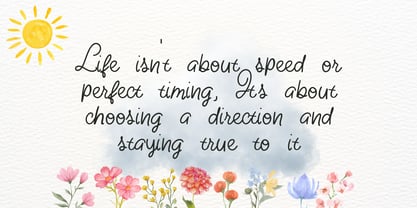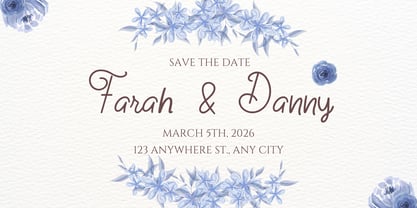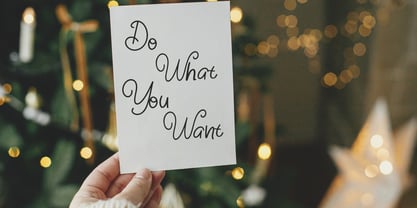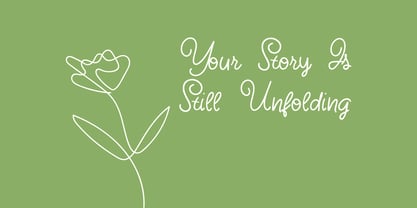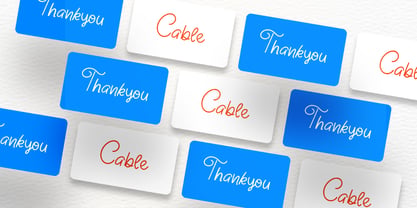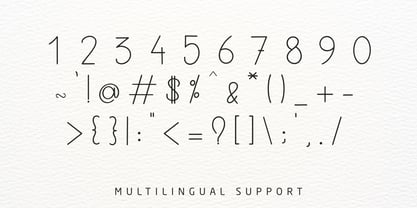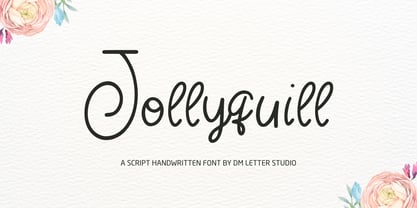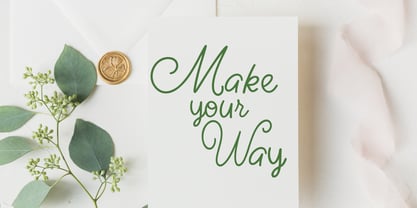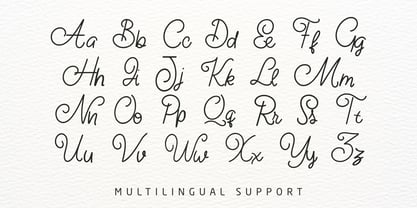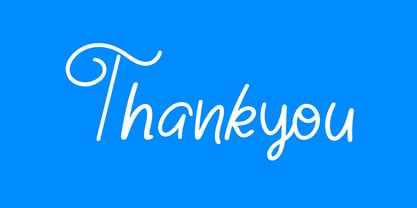
Jollyquill
by DM Studio
The Jollyquill Font Family was designed by Dimas Prasetyo and published by DM Studio. Jollyquill contains 1 styles. More about this family
Meet Jollyquil, the Script Handwriting Font Jollyquil is a cheerful script handwriting font with smooth flow and natural movement. The strokes feel lively and friendly, like real pen lettering written with confidence and charm. Each letter connects beautifully, creating words that look personal and warm without losing clarity. Use Jollyquil for branding, invitations, packaging, social media quotes, planners, greeting cards, and lifestyle designs. As a result, your typography feels joyful, expressive, and easy to love. Why Jollyquil sells First, Jollyquil installs quickly and works smoothly in Canva, Photoshop, Illustrator, and Procreate. Next, the balanced stroke weight prints cleanly for stickers, DTF, sublimation, and stationery projects. Then layouts come together faster because the natural rhythm keeps words flowing evenly. Moreover, script handwriting fonts are always in demand for weddings, small businesses, and creative products. Therefore, Jollyquil fits perfectly in both personal and commercial design projects. Fast layouts with the Jollyquil Script Font Start with short phrases or brand names to showcase the flowing connections. After that, pair Jollyquil with a clean serif or minimal sans serif for supporting text. Because the script has smooth curves, it works beautifully on light backgrounds and soft color palettes. In addition, try adjusting spacing slightly for a more airy, elegant feel. Finally, save color combinations like blush and ivory, sage and cream, navy and gold, or charcoal and beige for consistent product lines. Creative uses and quick wins Wedding invitations and save-the-date cards Brand logos and boutique packaging Social media quotes and planner designs Greeting cards, stickers, and handmade product labels What you get Uppercase and lowercase letters Numbers and basic punctuation Design tips for Jollyquil Use Jollyquil for headlines, signatures, or accent text rather than long paragraphs. Also, keep enough spacing around the letters so the script connections stay readable. For print, export at 300 DPI to maintain smooth curves. For digital use, scale slightly larger so strokes remain crisp on mobile screens. Finally, avoid heavy shadows. Let the natural handwriting style stand on its own.
Designers: Dimas Prasetyo
Foundry: DM Studio